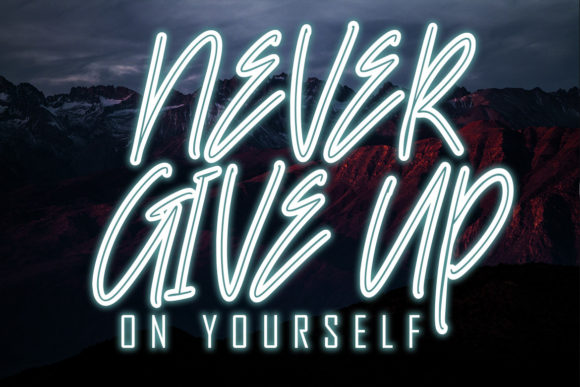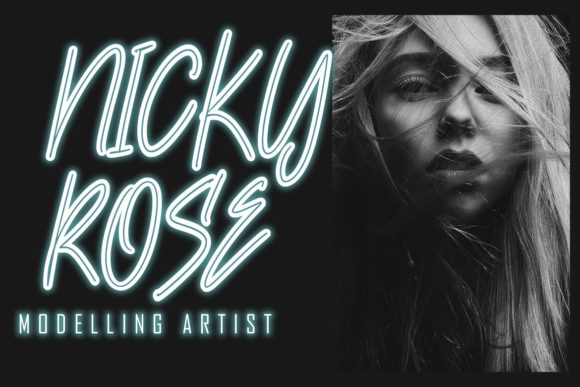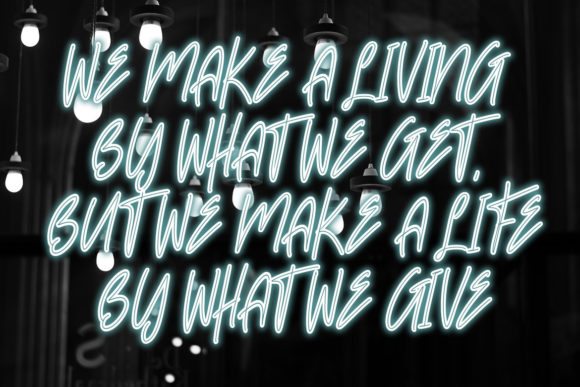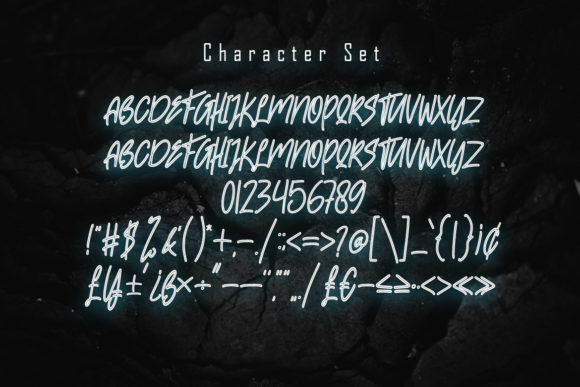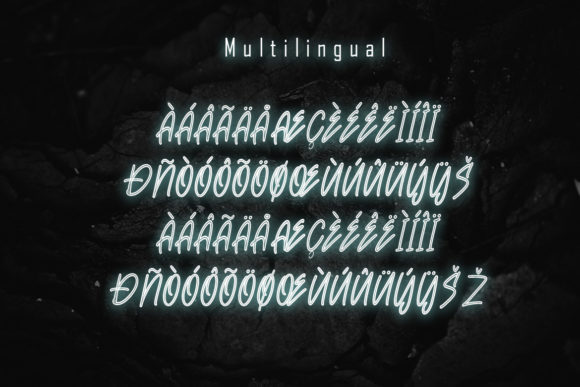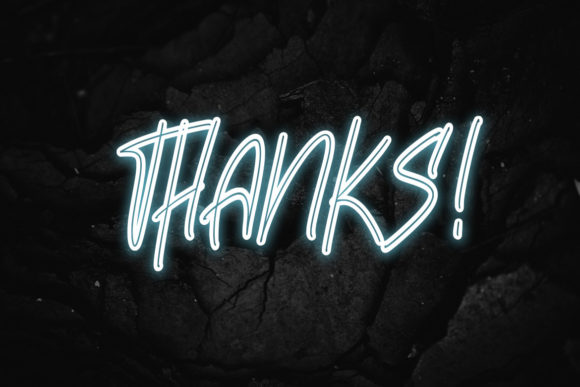
Unleash Your Creativity with Beslyn Font: The Ultimate Graffiti-Styled Display Font
Are you a designer or crafter looking for a font that can add a touch of edginess and modernity to your designs? Look no further than Beslyn Font, an awesome graffiti-styled display font that exudes a futuristic, street art vibe. In this article, we’ll dive into the world of Beslyn Font, exploring its features, uses, and benefits, and why it’s a must-have for any creative looking to take their designs to the next level.
What is Beslyn Font?
Beslyn Font is a unique and stylish display font that is inspired by the vibrant and dynamic world of graffiti and street art. With its bold, edgy, and futuristic design, Beslyn Font is perfect for creating eye-catching designs that demand attention. Whether you’re looking to create stunning logos, advertisements, t-shirts, sportswear, or any other type of design, Beslyn Font is the perfect choice.
Key Features of Beslyn Font
So, what makes Beslyn Font so special? Here are some of its key features:
- Graffiti-styled design: Beslyn Font boasts a unique graffiti-styled design that gives it a fresh and modern look.
- Display font: Beslyn Font is a display font, making it perfect for headlines, titles, and other attention-grabbing elements.
- Futuristic vibe: The font’s futuristic design makes it perfect for designs that require a modern and edgy feel.
- Street art inspiration: Beslyn Font draws inspiration from street art, making it perfect for designs that require a bold and daring look.
Uses of Beslyn Font
Beslyn Font is a versatile font that can be used in a variety of designs, including:
- T-shirts and sportswear: Beslyn Font is perfect for creating eye-catching designs for t-shirts, hoodies, and other sportswear.
- Logos and branding: The font’s bold and edgy design makes it perfect for creating stunning logos and branding materials.
- Advertisements: Beslyn Font is perfect for creating attention-grabbing advertisements that demand attention.
- Clothing and accessories: The font’s stylish design makes it perfect for creating stunning designs for clothing and accessories.
Benefits of Using Beslyn Font
So, why should you choose Beslyn Font for your designs? Here are some of its benefits:
- Unique and stylish design: Beslyn Font boasts a unique and stylish design that will set your designs apart from the rest.
- Attention-grabbing: The font’s bold and edgy design makes it perfect for creating attention-grabbing designs.
- Versatile: Beslyn Font can be used in a variety of designs, from logos and branding to advertisements and clothing.
Tips for Using Beslyn Font
Here are some tips for using Beslyn Font in your designs:
- Use it for headlines and titles: Beslyn Font is perfect for headlines and titles, where its bold and edgy design can really shine.
- Experiment with different colors: The font’s design looks great in a variety of colors, so don’t be afraid to experiment and find the perfect color for your design.
- Pair it with other fonts: Beslyn Font can be paired with other fonts to create a unique and stylish look.
In conclusion, Beslyn Font is an awesome graffiti-styled display font that is perfect for designers and crafters looking to add a touch of edginess and modernity to their designs. With its bold, edgy, and futuristic design, Beslyn Font is perfect for creating eye-catching designs that demand attention. Whether you’re looking to create stunning logos, advertisements, t-shirts, sportswear, or any other type of design, Beslyn Font is the perfect choice.